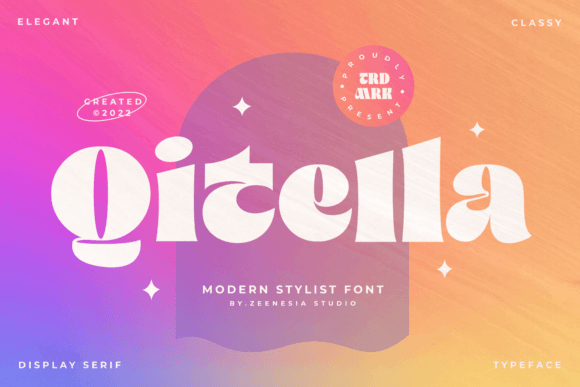
Introducing Qitella Font, the epitome of elegance and sophistication. Created by zeenesia, this exquisite serif font will take your designs to new heights. With its bold style and strong character, Qitella Font is perfect for any occasion, especially wedding cards.
As you browse through our collection, you'll notice that Qitella Font stands out from the rest. Its soft features and modern yet classic design make it a true gem. Whether you're designing an editorial project, a logo, or even clothing branding, Qitella Font will elevate your creations to a whole new level of professionalism.
One of the outstanding features of Qitella Font is its versatility. It effortlessly complements large text and shines in every context. Imagine your magazine headers adorned with this captivating font, or your product packaging catching the eye of potential customers. Qitella Font adds a touch of elegance to any project, making it irresistible to anyone who lays eyes on it.
But Qitella Font is not just visually stunning; it also brings a sense of emotion to your designs. Its timeless beauty evokes feelings of love, joy, and excitement, making it the perfect choice for wedding cards. Every letter exudes romance and charm, creating an unforgettable experience for your clients and their loved ones.
Furthermore, Qitella Font is incredibly user-friendly. Its clear and bold look ensures legibility even in small sizes, guaranteeing that your message will come across loud and clear. Whether you're designing for print or web, Qitella Font is the ideal companion for your creative journey.
In conclusion, Qitella Font is not just a font; it's an experience. Its bold style, strong character, and soft features make it the best font for wedding cards. From editorial projects to clothing branding, Qitella Font is the ultimate choice for those seeking elegance and versatility. So go ahead, download Qitella Font today and witness the magic unfold. Your designs deserve nothing but the best.